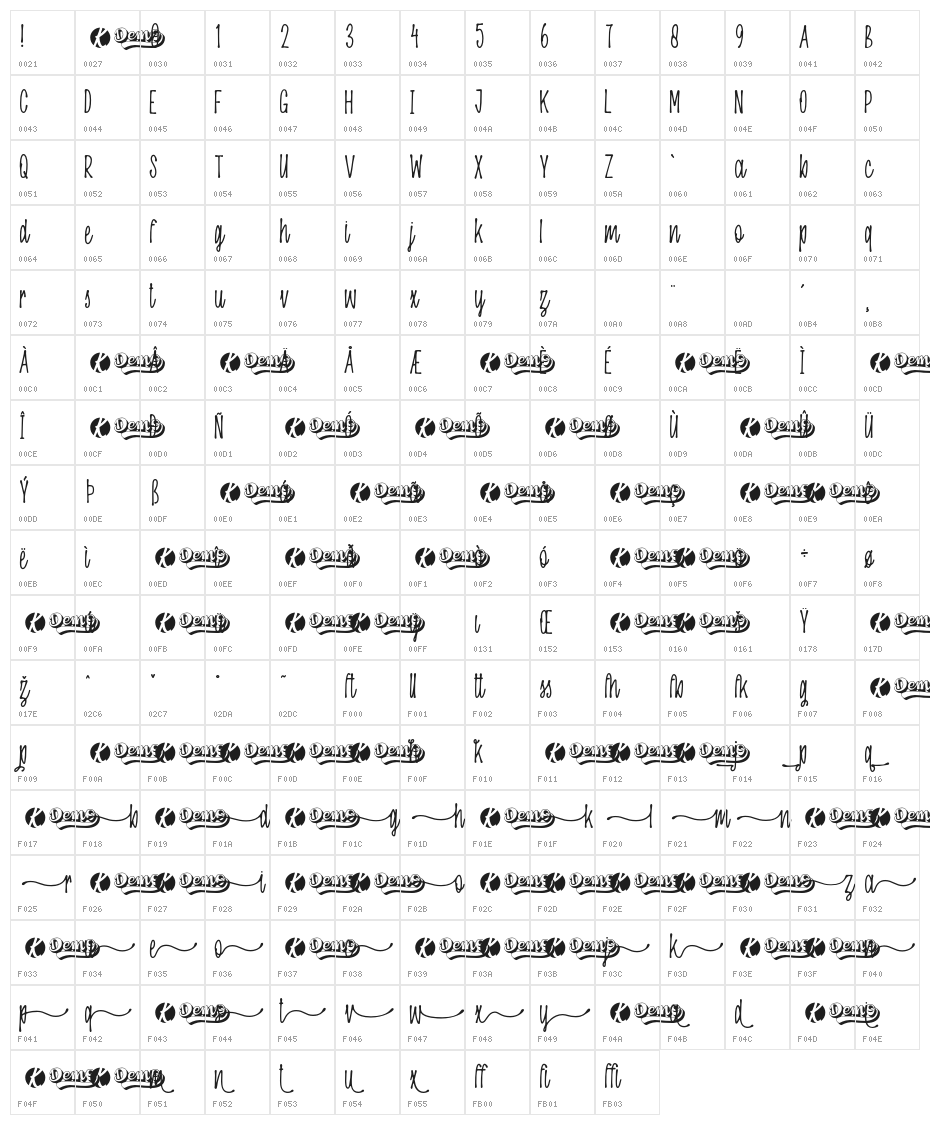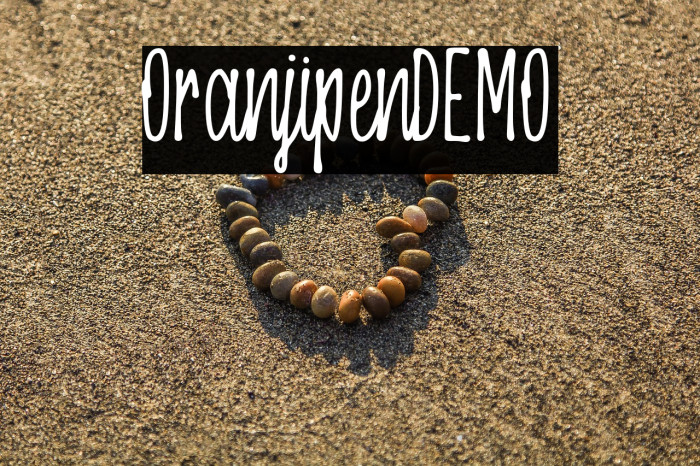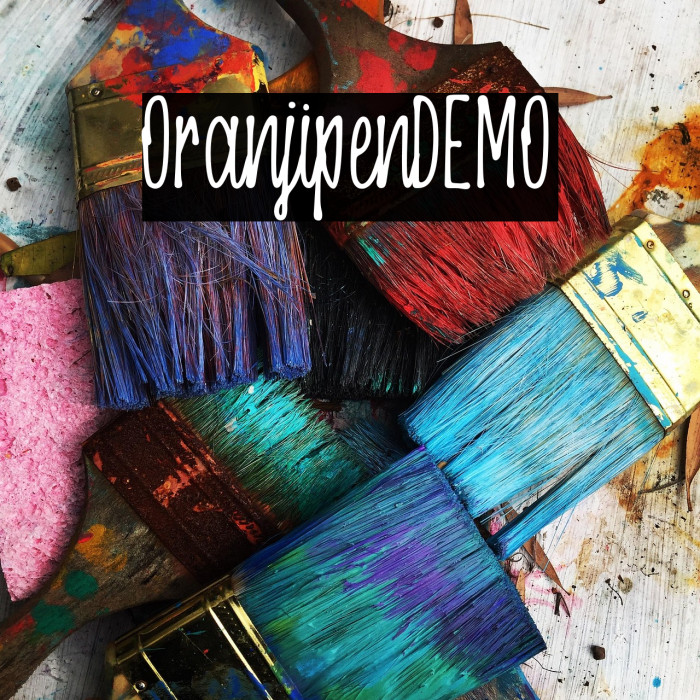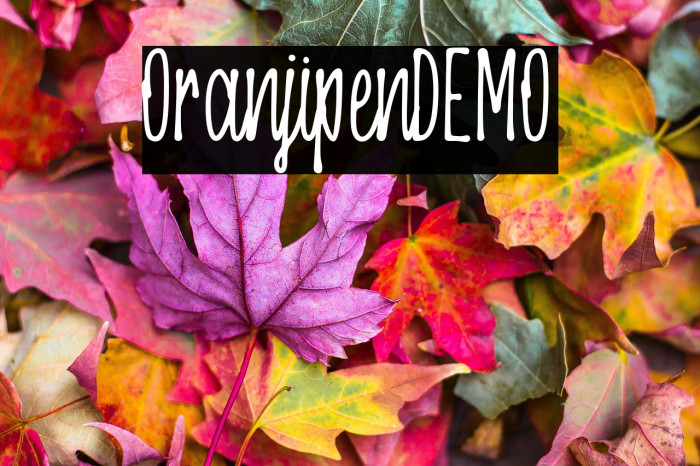
Oranjipen-DEMO Font
Oranjipen-DEMO Description
This font features a playful and casual handwritten style, characterized by its slightly irregular strokes and friendly appearance. The uppercase letters are tall and narrow, while the lowercase letters maintain a consistent flow with subtle variations in height and width. The numbers are clear and legible, matching the overall style of the alphabet. The special characters are designed to complement the letters, adding to the cohesive look. This font exudes a sense of warmth and approachability, making it suitable for projects that require a personal touch.
| Use Case | Logos, Headlines, Social Media Graphics |
| Proposed Projects | Ideal for greeting cards, invitations, personal branding, and social media graphics. |